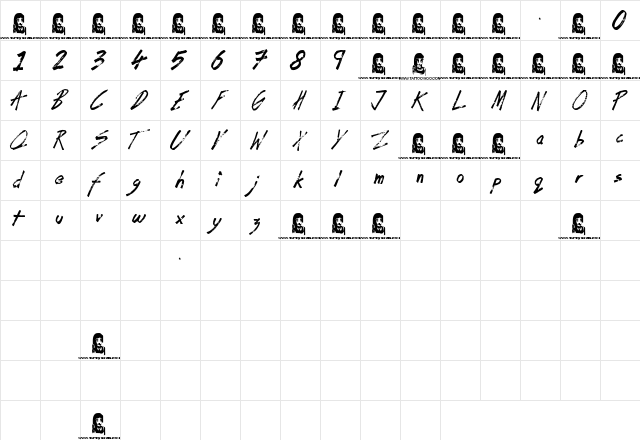
Newyorkers Regular
Newyorkers is a composed and adaptable typeface that performs quietly and consistently across a wide range of design contexts.
Pro Tip: Use Newyorkers in both headline and body roles to test its range before committing to a single application.